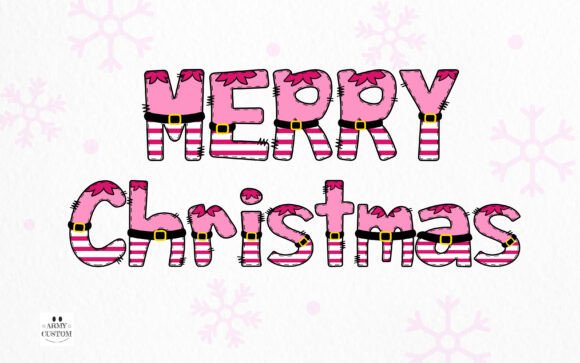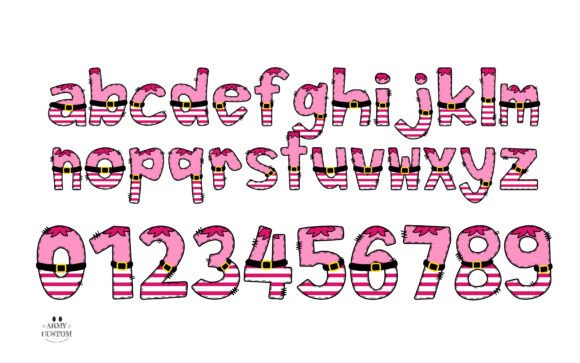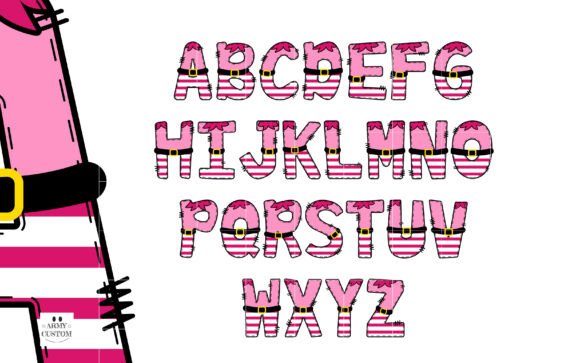
Introducing Elf Squad Pink Edition Font: The Ultimate Holiday Cheer for Your Designs
Are you looking for a font that embodies the spirit of Christmas and adds a dash of fun to your designs? Look no further than the Elf Squad Pink Edition Font! This festive, full-color font is bursting with holiday cheer, making it perfect for Christmas cards, children’s holiday crafts, festive t-shirts, party invites, or school projects.
A Delightfully Playful Character Color Font
Elf Squad Pink Edition is a delightfully playful character color font that is dressed head to toe in festive holiday cheer. Each letter is transformed into a cute pink elf outfit, complete with hats, belts, candy canes, and boots. The font’s playful design is sure to bring a smile to anyone’s face, making it ideal for designs that need to be merry, bright, and full of fun.
Perfect for Holiday Designs
Elf Squad Pink Edition Font is perfect for a variety of holiday designs, including:
- Christmas cards: Add a personal touch to your holiday cards with this festive font.
- Children’s holiday crafts: Make holiday crafts more fun and engaging with this playful font.
- Festive t-shirts: Create fun and festive t-shirts for kids and adults alike.
- Party invites: Invite friends and family to holiday parties with festive and fun invitations.
- School projects: Add a touch of holiday cheer to school projects and presentations.
Unique and Eye-Catching Design
Each letter in the Elf Squad Pink Edition Font is uniquely dressed in bright pink elf outfits, complete with stitched details, candy canes, belts, boots, and stockings. This eye-catching design makes your text look like it came straight from Santa’s workshop. The font’s bold and jolly design is sure to grab attention and add personality to your designs.
Elf Squad Pink Edition Font is ideal for designers and crafters who want to add a touch of holiday cheer to their designs. The font is easy to use and can be incorporated into a variety of design projects, from digital designs to print projects.
Key Features of Elf Squad Pink Edition Font
- Festive, full-color font bursting with holiday cheer
- Delightfully playful character color font dressed in festive holiday cheer
- Each letter transformed into a cute pink elf outfit, complete with hats, belts, candy canes, and boots
- Perfect for Christmas cards, children’s holiday crafts, festive t-shirts, party invites, or school projects
- Ideal for designs that need to be merry, bright, and full of fun
- Bold, jolly, and full of personality
Elf Squad Pink Edition Font is the perfect addition to any design project that needs a touch of holiday cheer. With its playful and festive design, this font is sure to bring joy and personality to your designs. Whether you’re a designer or crafter, Elf Squad Pink Edition Font is a must-have for the holiday season.